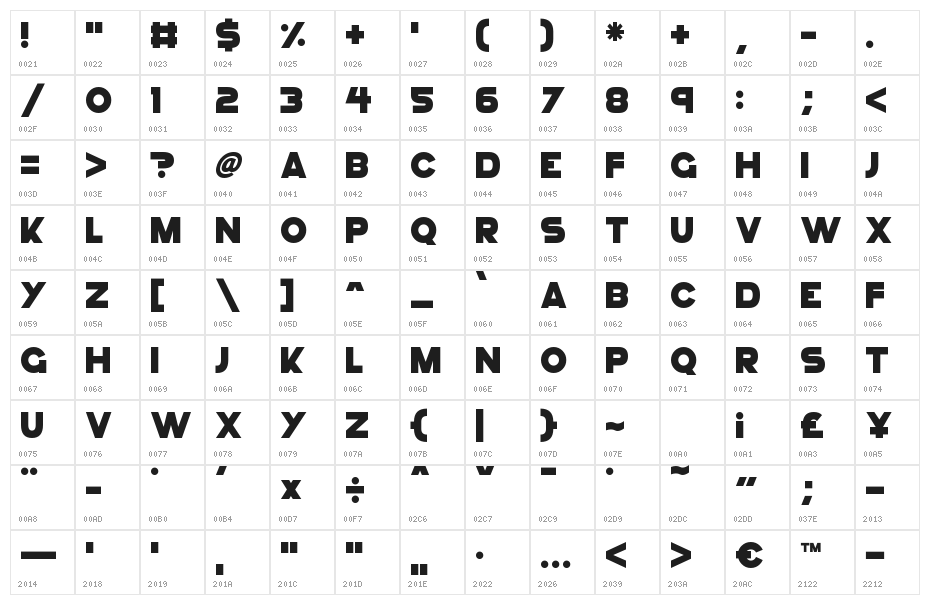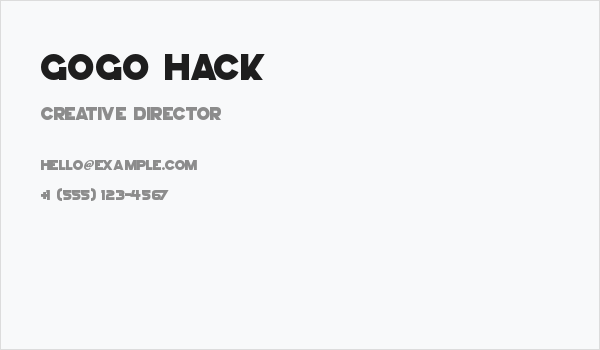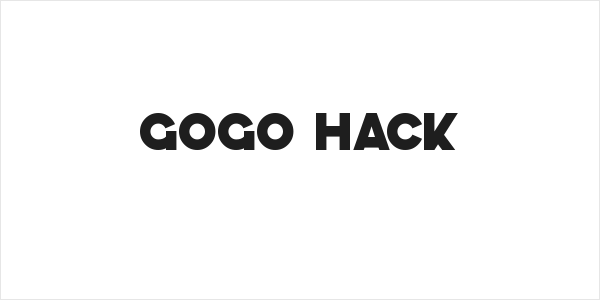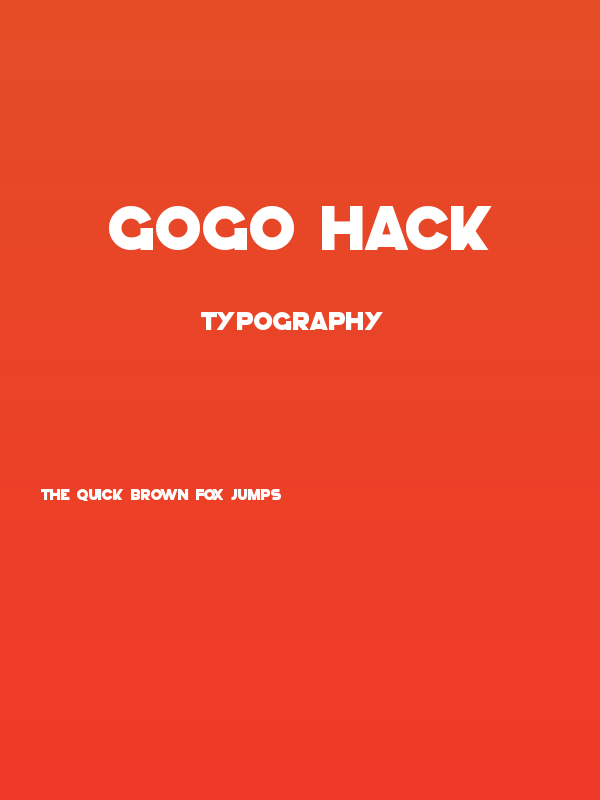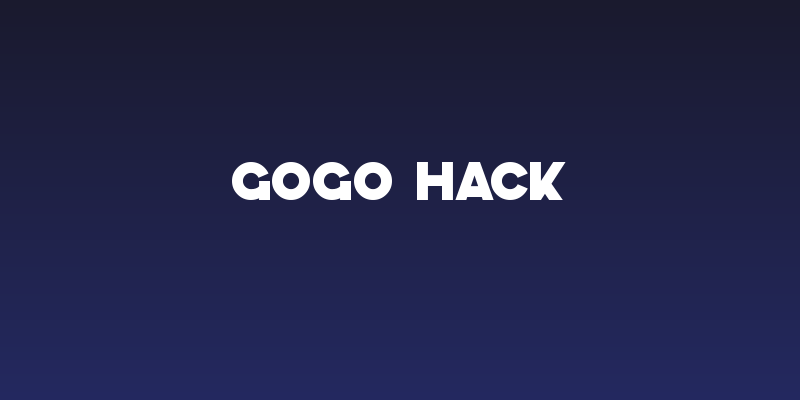
GoGo Hack Font
This font features bold, geometric letterforms with a strong, impactful presence. The characters are constructed with thick strokes and sharp angles, creating a modern and assertive aesthetic. The uppercase letters are uniform in height, while the numerals and special characters maintain the same boldness and geometric style. The font's design is consistent throughout, with a focus on clarity and strength, making it suitable for attention-grabbing applications.